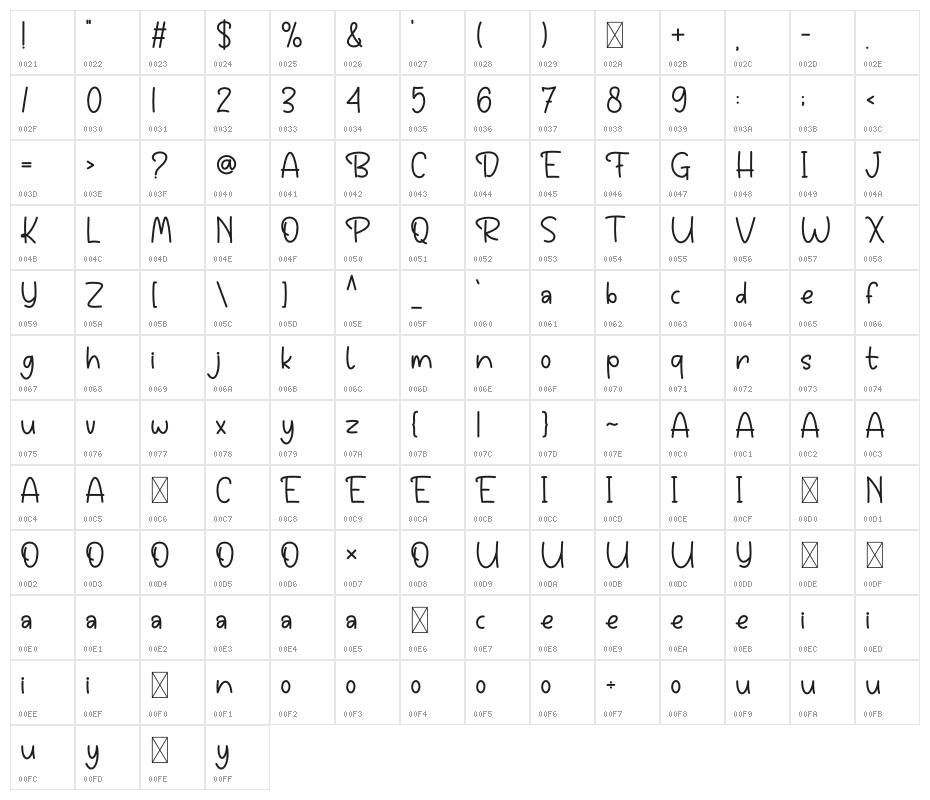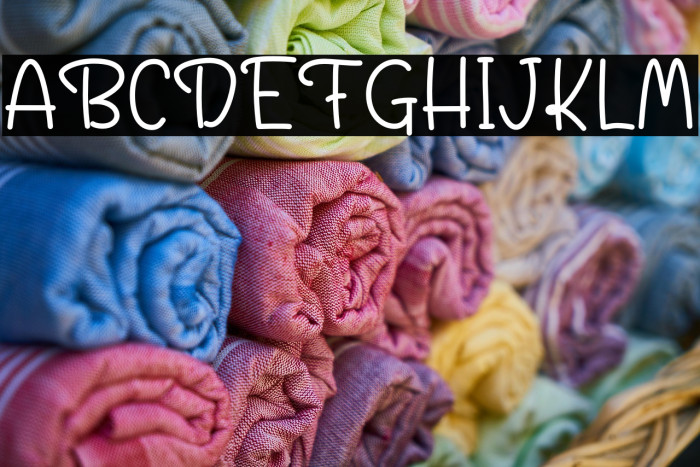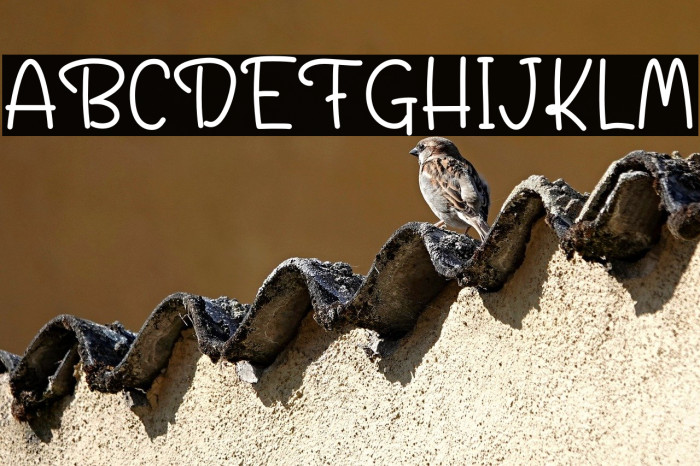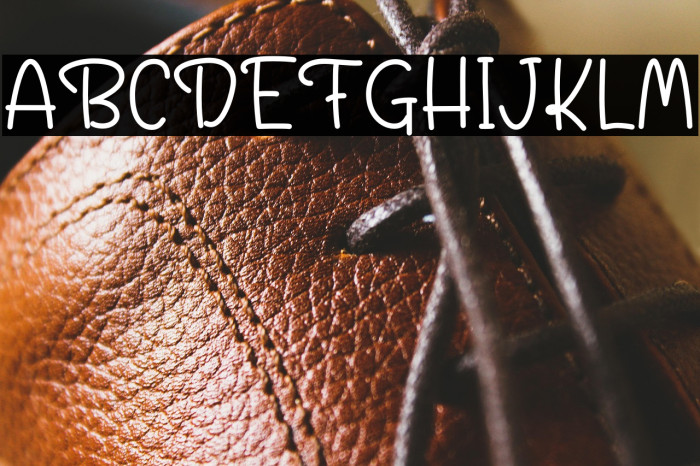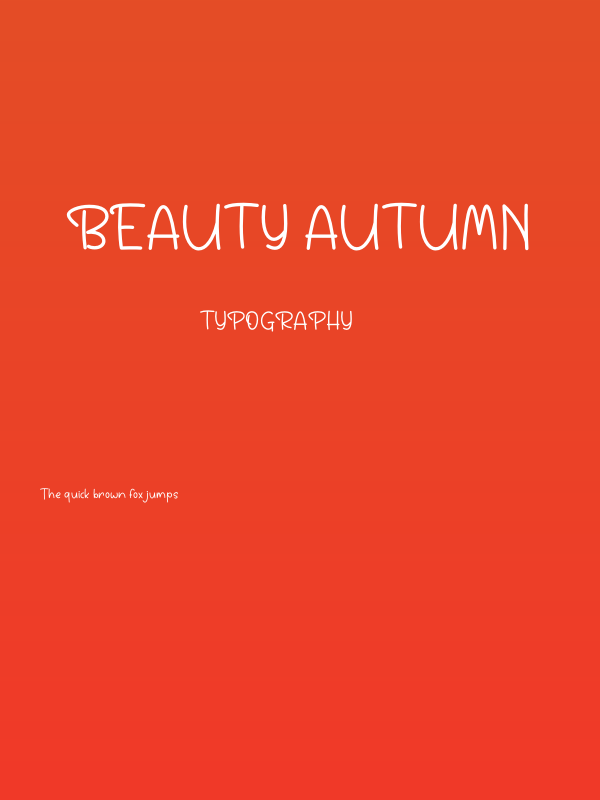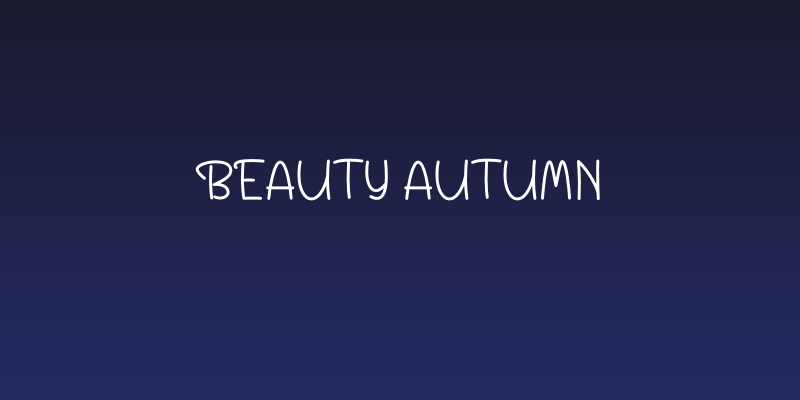
Beauty Autumn Font
Beauty Autumn Description
A playful, handwritten font with a casual and friendly appearance. The letters are slightly irregular, giving it a personal touch.
| Overall Style | Casual, Friendly |
| Use Case | Informal text, Personal notes |
| Proposed Projects | Greeting cards, children's books, informal invitations. |